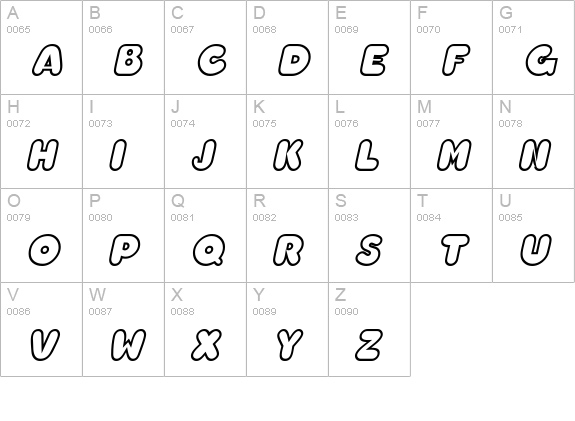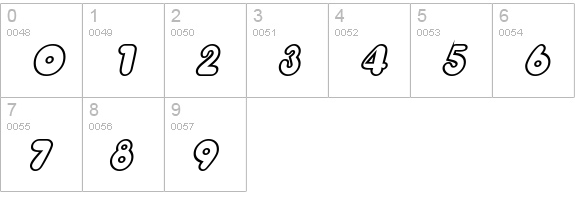
ChubbyOutline Bold Italic Font Details
ChubbyOutline Bold Italic is a strong, high-contrast, italic variant in the ChubbyOutline typeface family \xE2\x80\x94 well suited to headlines, attention-grabbing titles, and strong calls-to-action.
ChubbyOutline Bold Italic font is a playful and eye-catching typeface that exudes a sense of fun and creativity. Its bold strokes and italicized slant give it a unique and modern look that is sure to make your designs stand out. Whether you're working on a poster, logo, or social media graphics, this font is perfect for adding a touch of personality and flair. The best part? ChubbyOutline Bold Italic font is completely free to download at FontsMarket.com. That's right, you can easily access this stylish font without any cost, making it a great choice for both personal and commercial projects. So why wait? Give your designs a fresh and trendy vibe with ChubbyOutline Bold Italic font today!